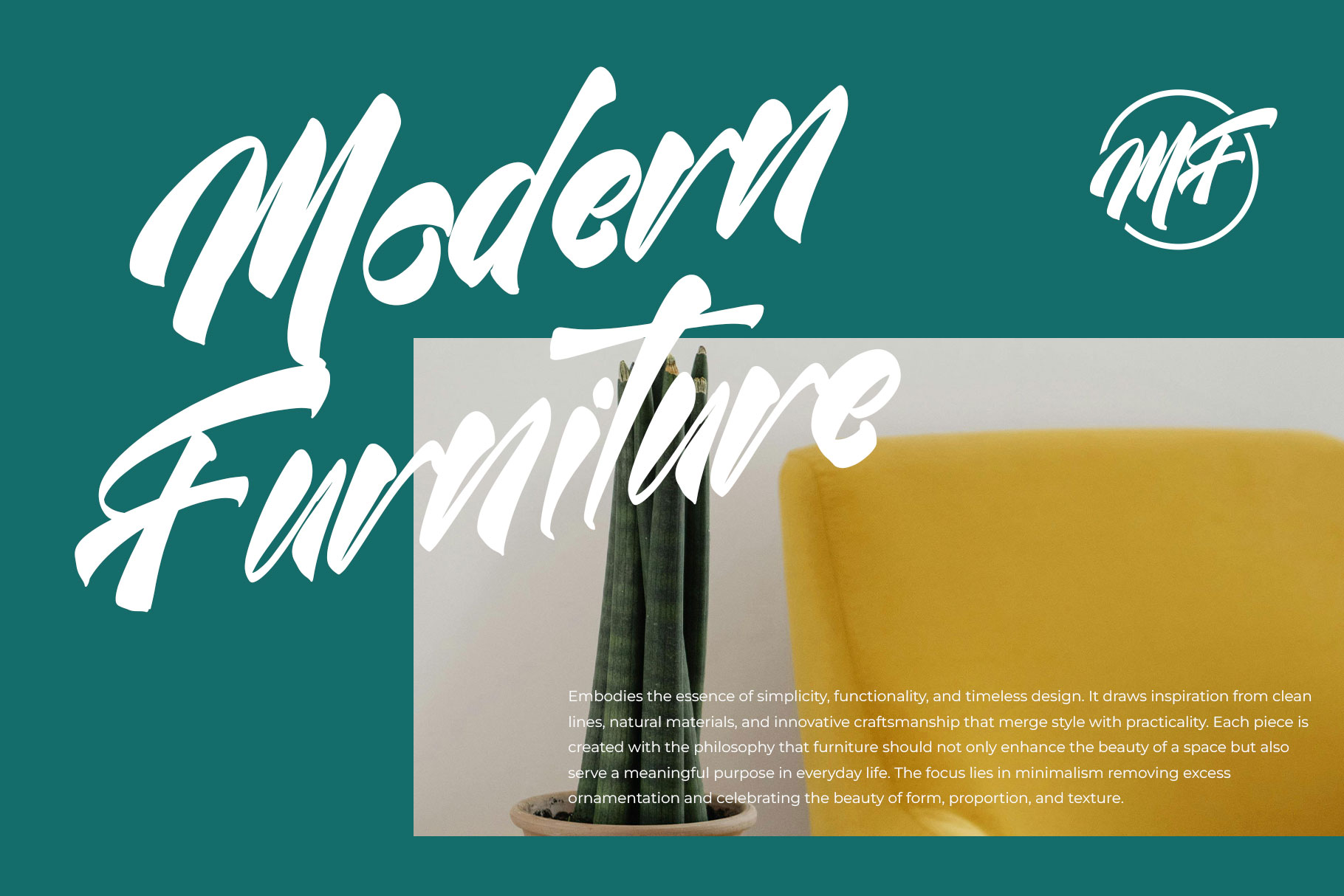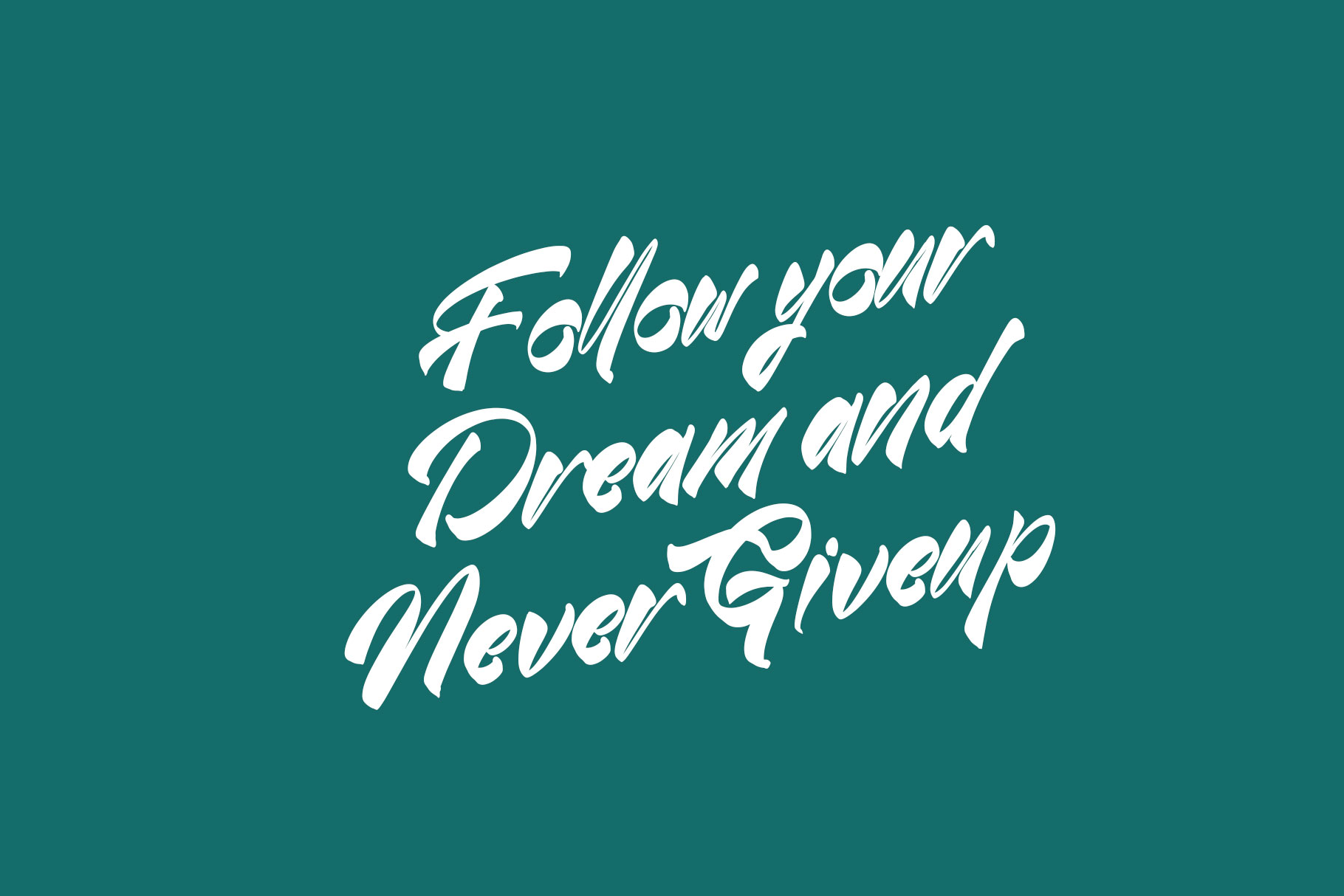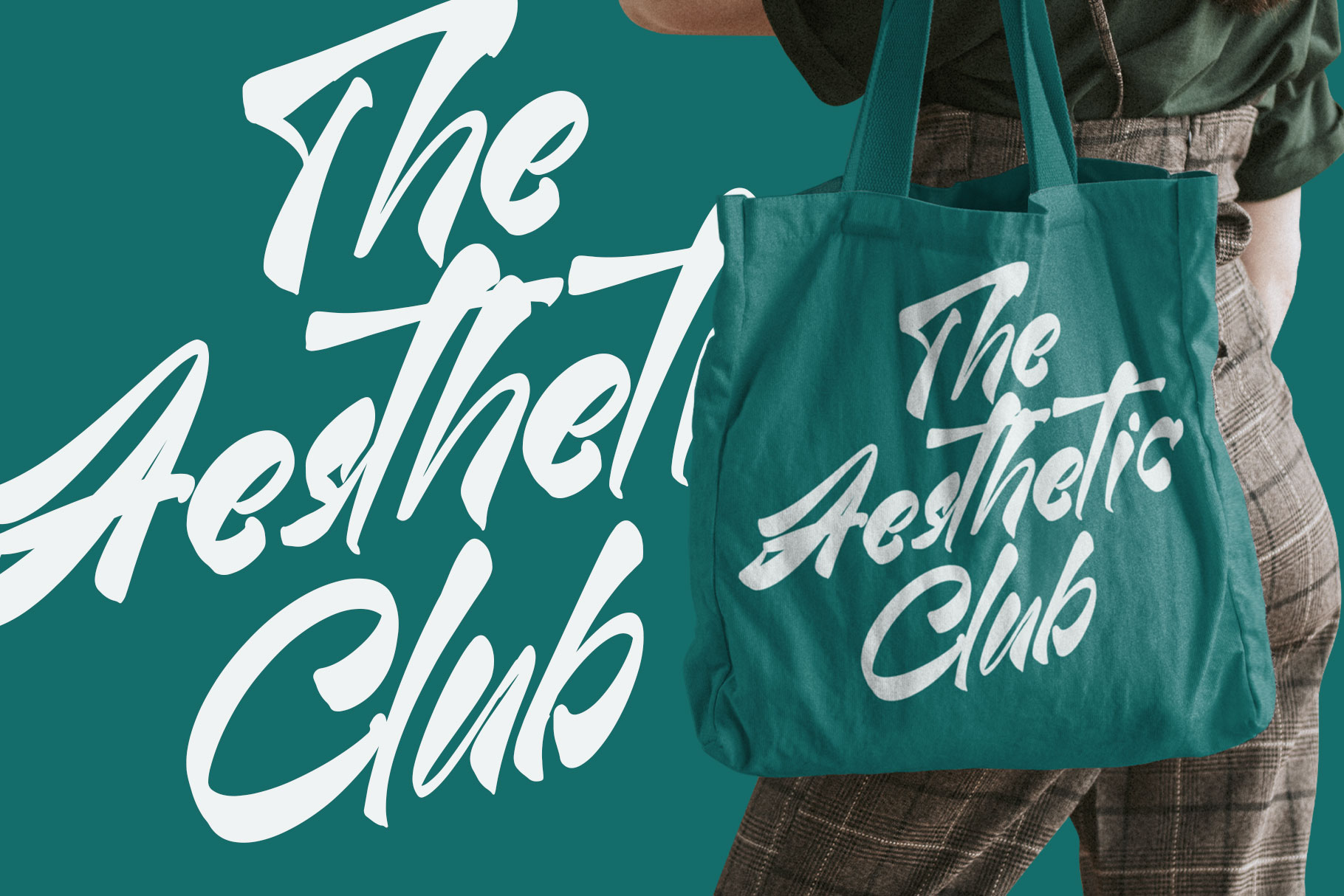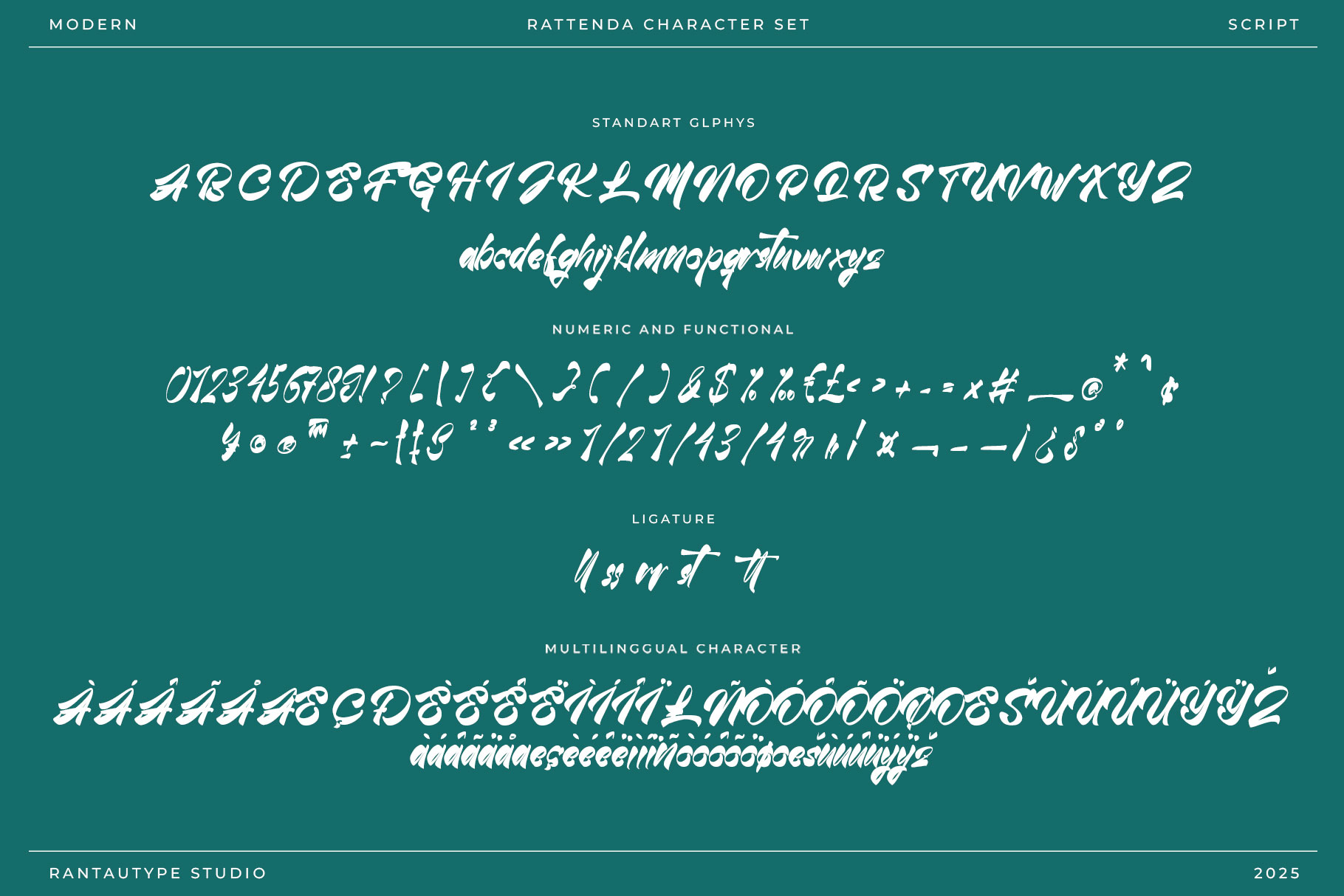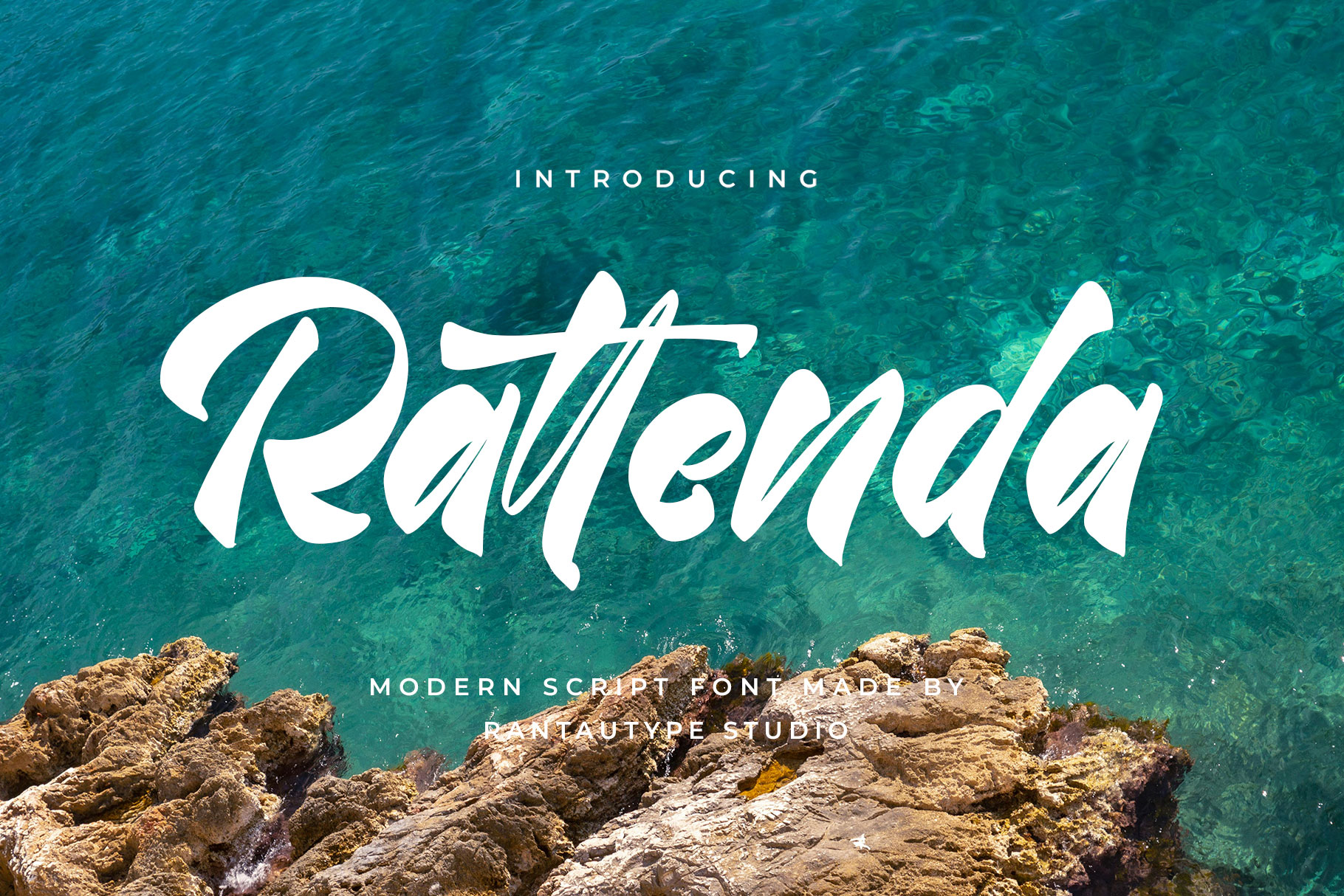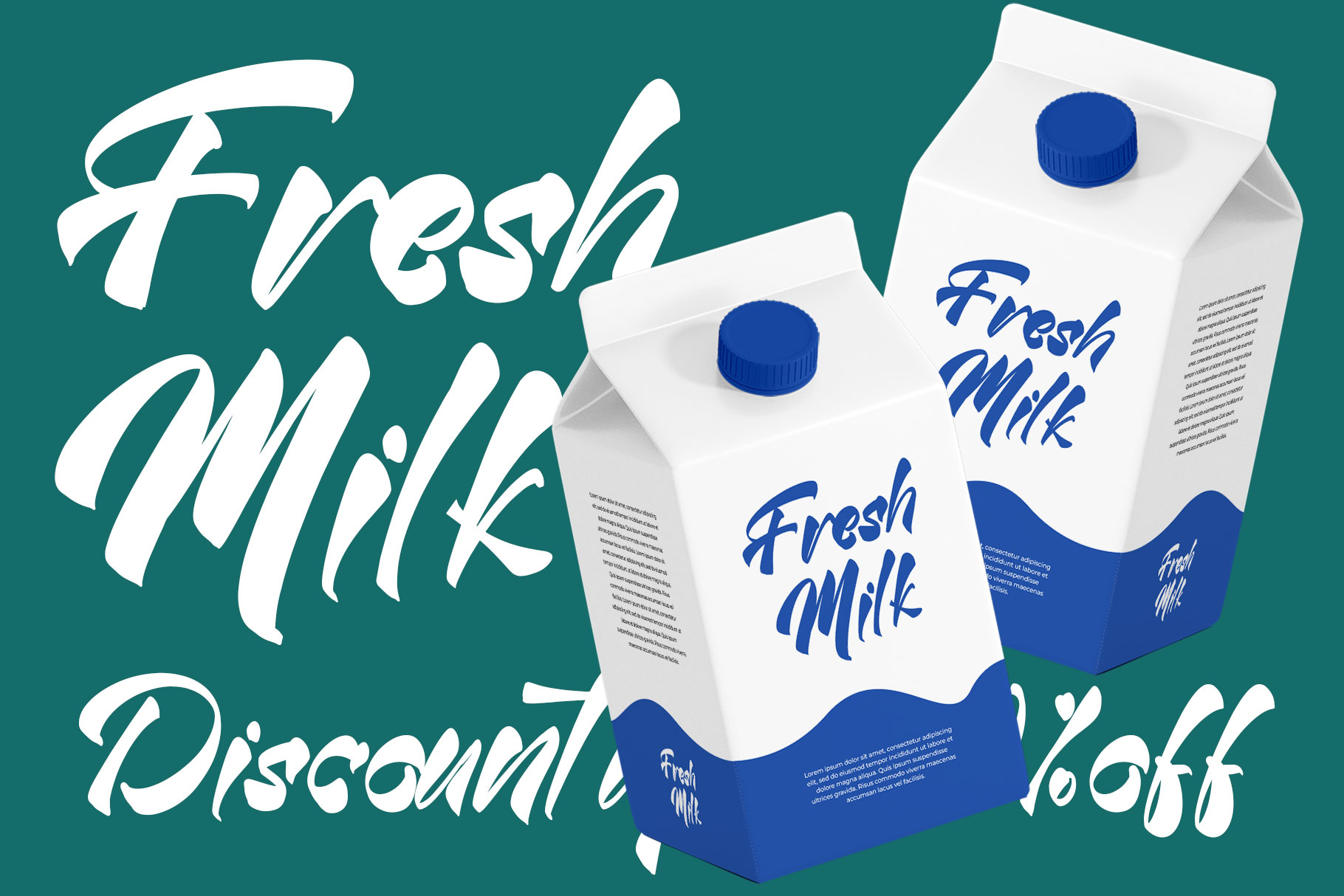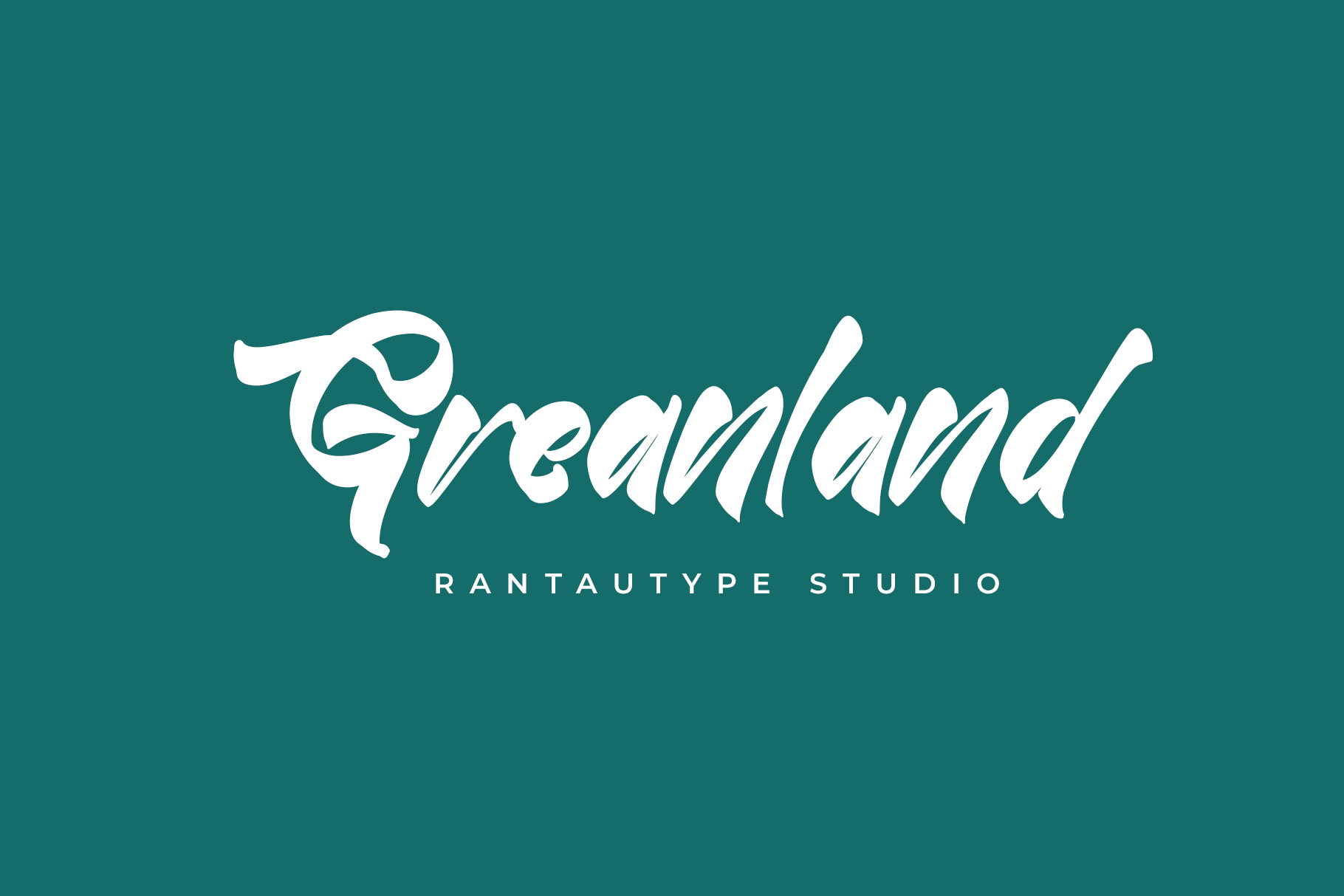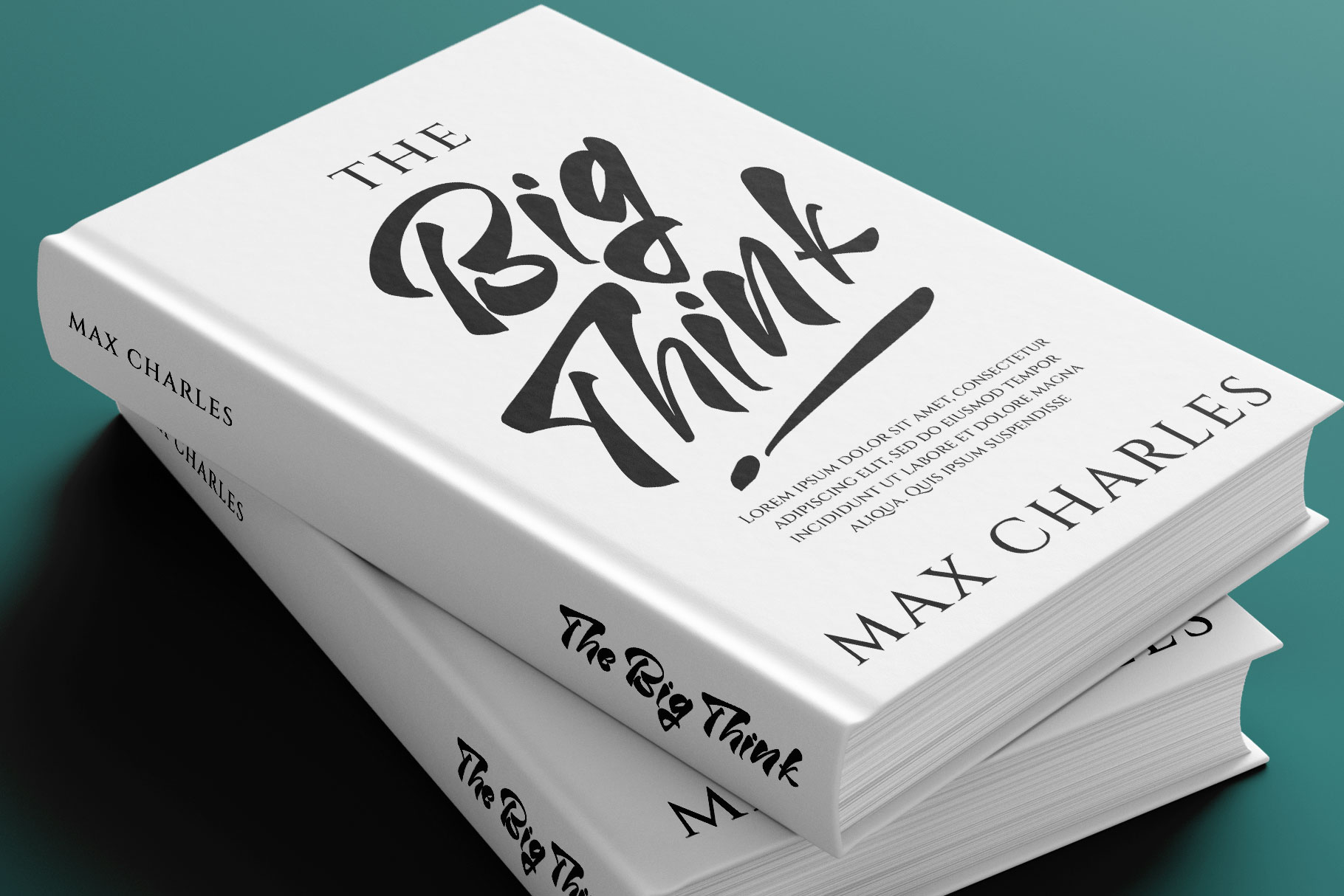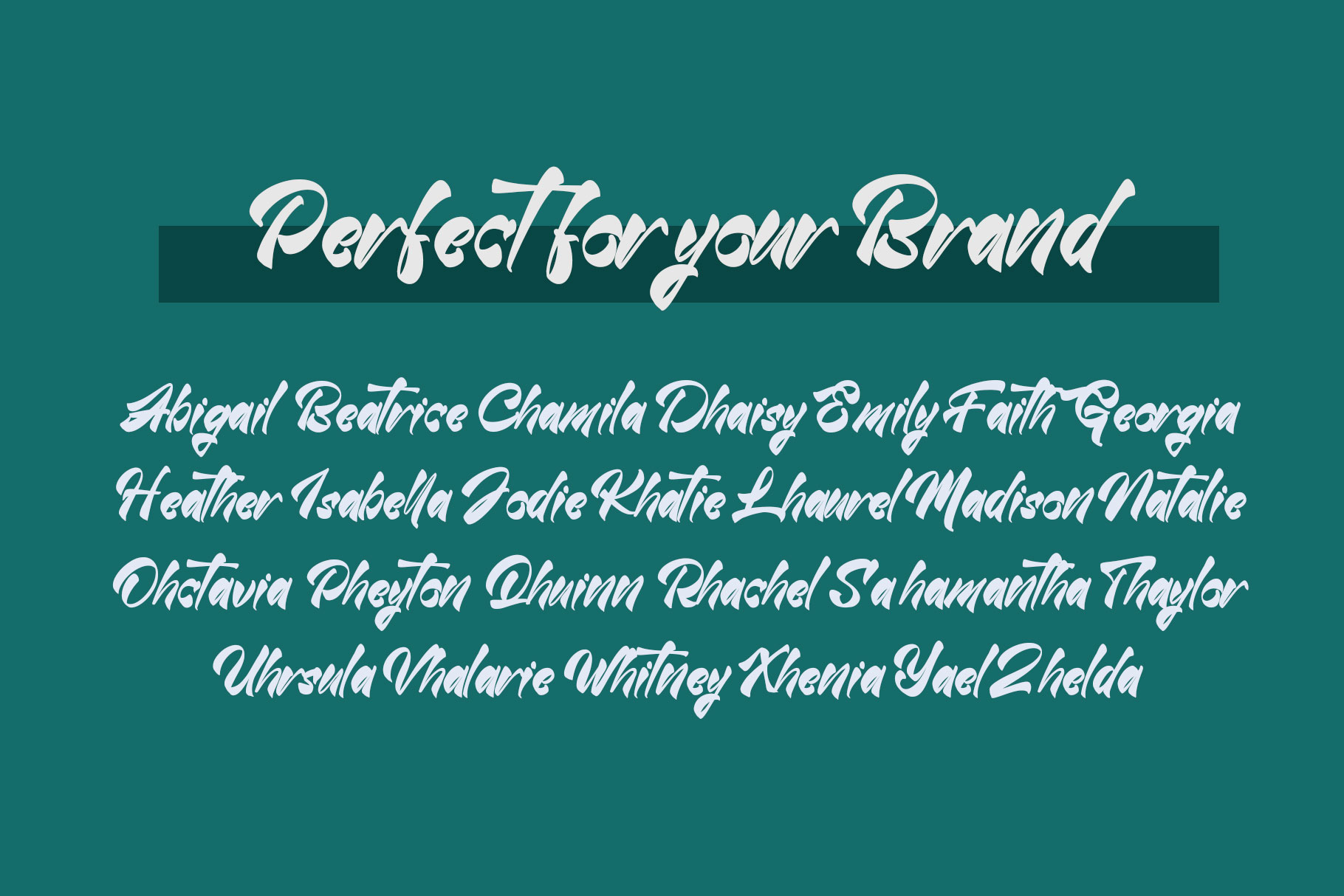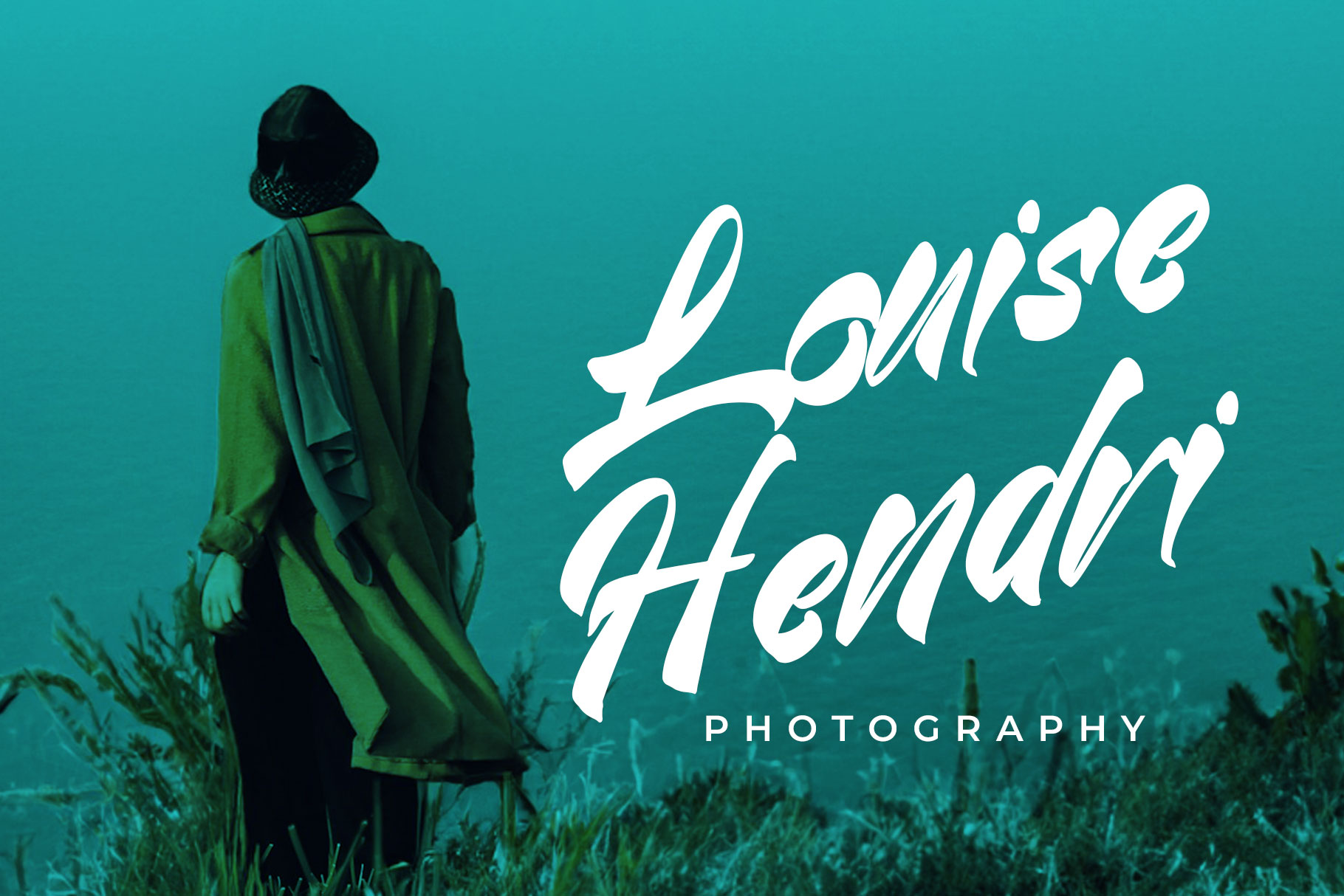
Rattenda Modern Script Font
Rattenda is modern script font with natural, hand-drawn strokes that feel both refined and relaxed, making every letter appear effortlessly stylish. Rattenda is a perfectly choice for any creative endeavor, chic, lifestyle design such as logotype, advertisements, watermark on photography, stationery, branding project, display and magazine, invitation, corporate brand, product design, label, business project and many other project with modern touch.